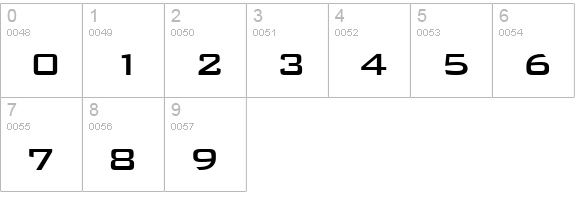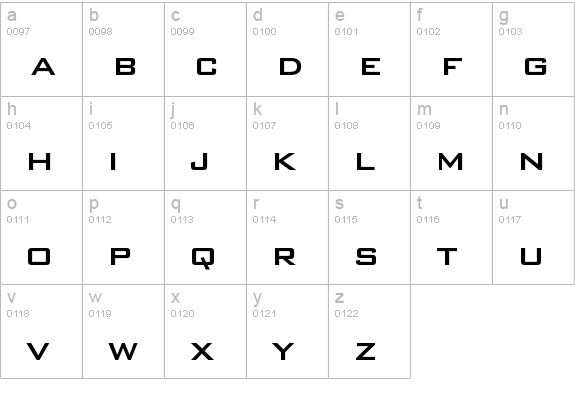
Fortis SSi is a versatile and modern typeface that exudes strength and sophistication. Its sleek and clean lines make it perfect for a wide range of design projects, from branding to editorial layouts. The font's sharp edges and bold presence make a statement while maintaining readability and elegance. What sets Fortis SSi apart is not only its striking appearance but also its accessibility. This exceptional font is available for free download at FontsMarket.com, making it an invaluable resource for designers, creatives, and anyone looking to add a touch of class to their work. With Fortis SSi, you can elevate your projects with a contemporary and impactful typeface that is both visually appealing and easily accessible.